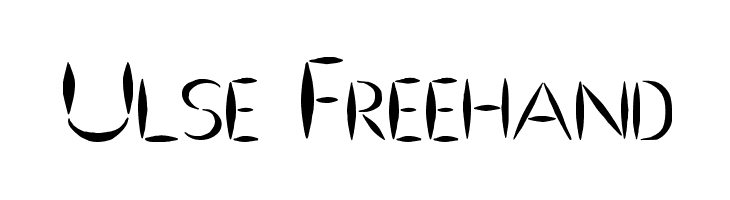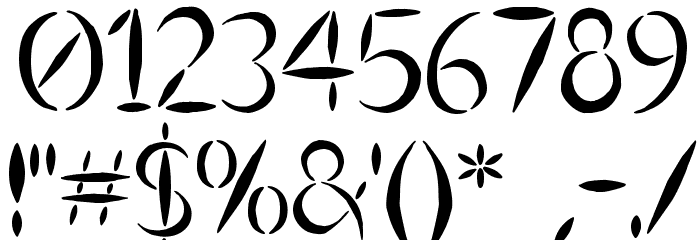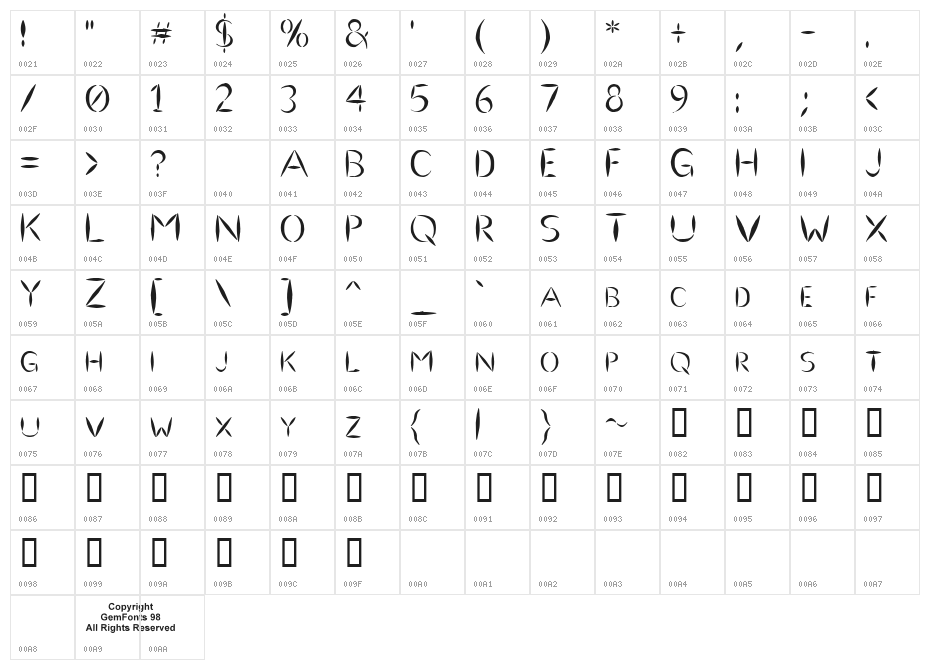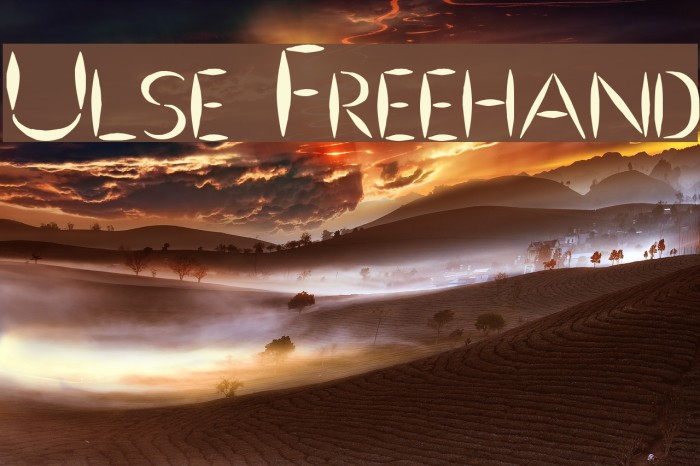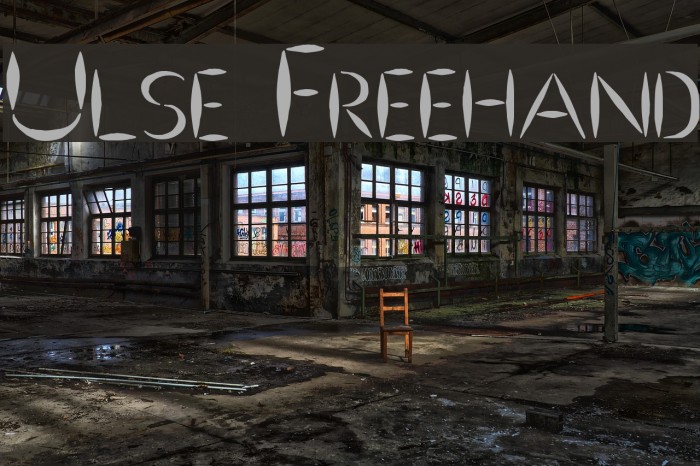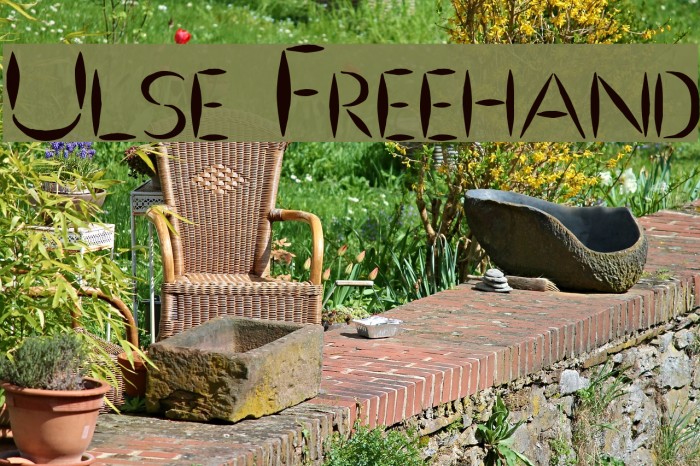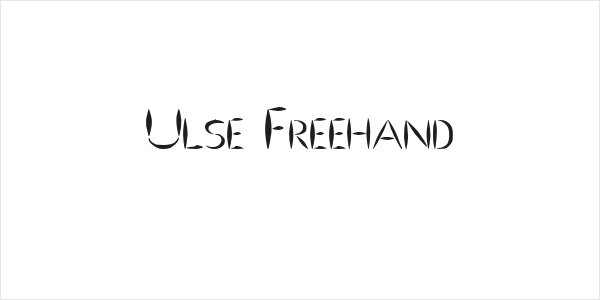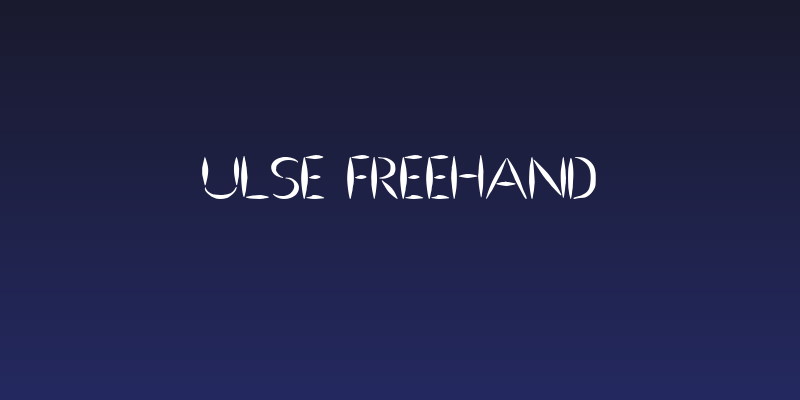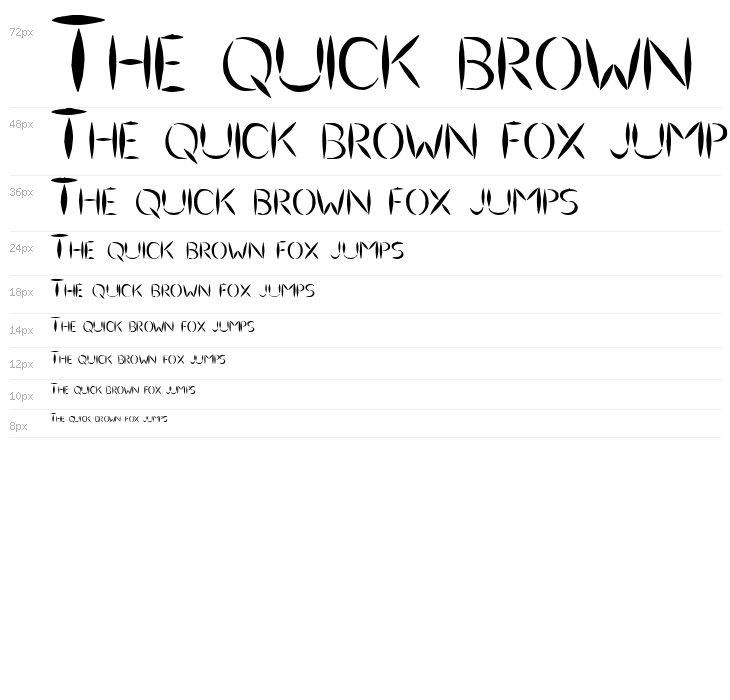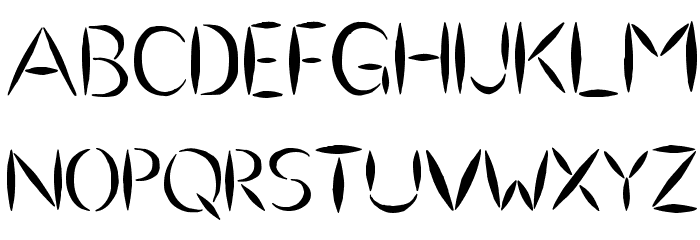
Ulse Freehand Font
Ulse Freehand Description
This font features a distinct freehand style with bold, sweeping strokes that create a dynamic and artistic appearance. The characters are crafted with a unique blend of sharp angles and smooth curves, giving them a lively and energetic feel. The uppercase and lowercase letters maintain a consistent style, while the numerals and special characters complement the overall design. The font's playful yet sophisticated look makes it suitable for creative projects that require a touch of elegance and flair.
| Overall Style | Artistic, Modern |
| Proposed Projects | Ideal for branding, posters, invitations, and artistic projects that require a unique and expressive typeface. |